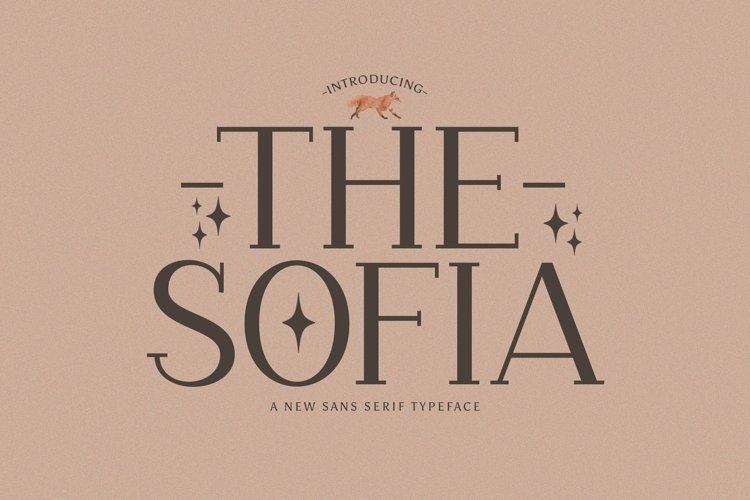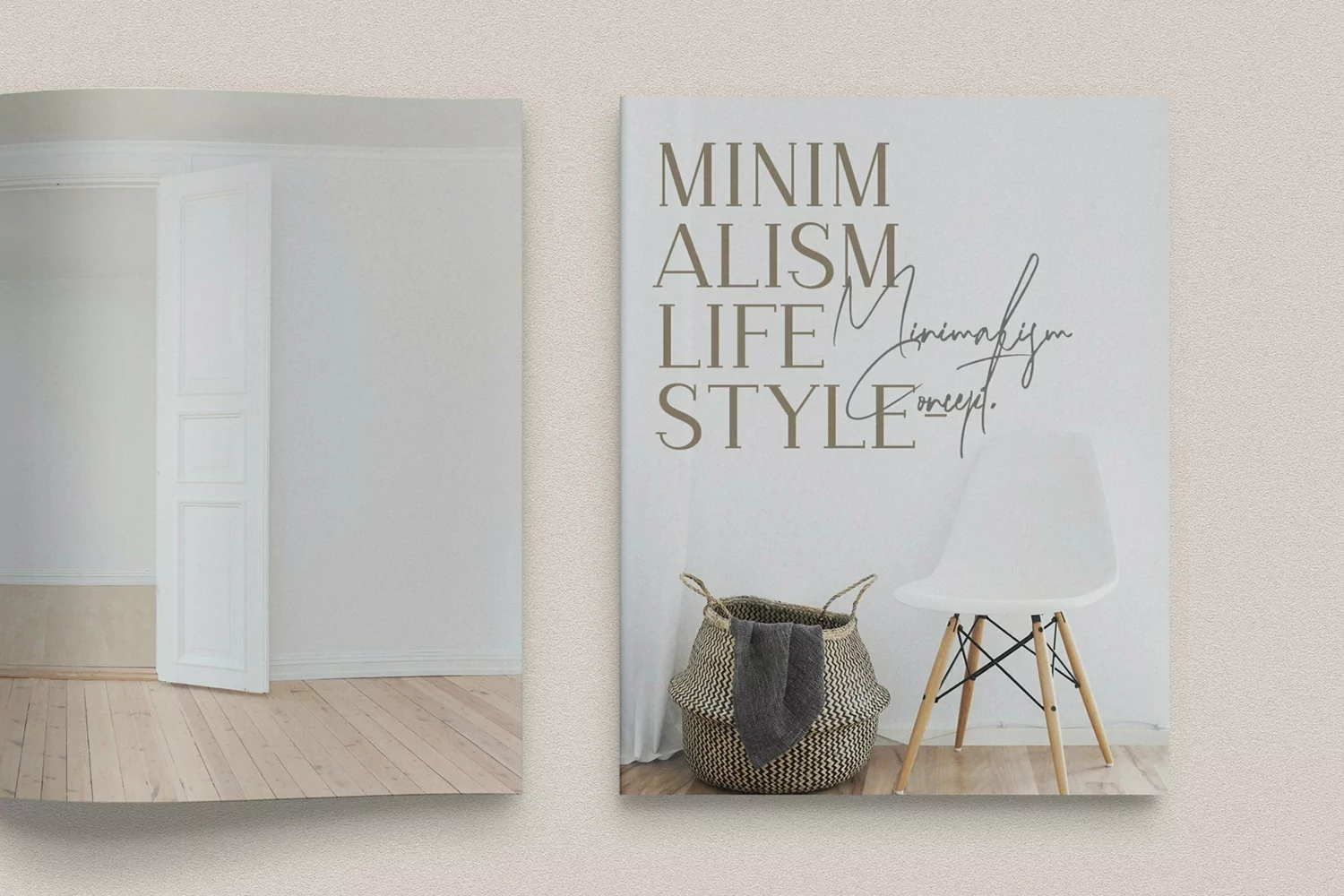
The Sofia is a new sans serif typeface. Perfect for display, poster, quotes, crafting needs, florist needs, wedding needs, business card, signature, packaging, merchandise, branding, logo, logotype, header, tittle, and many more.